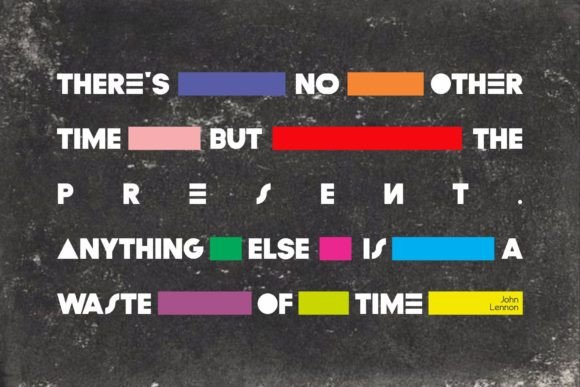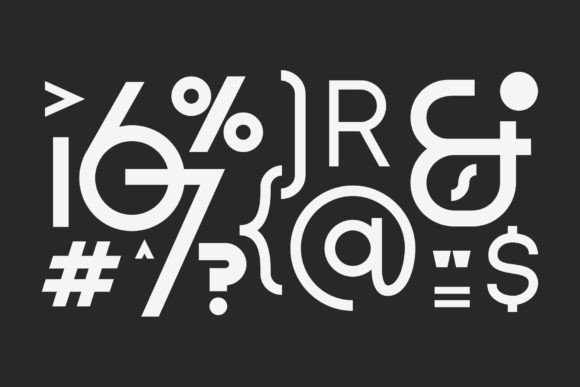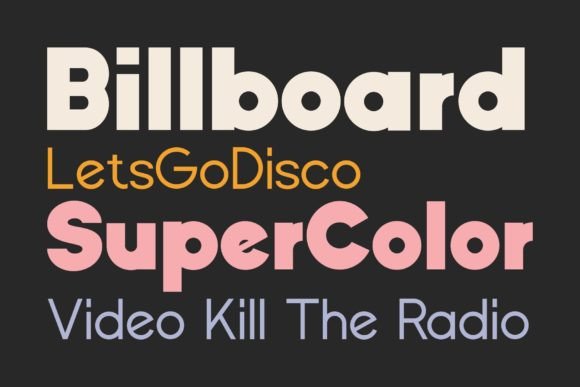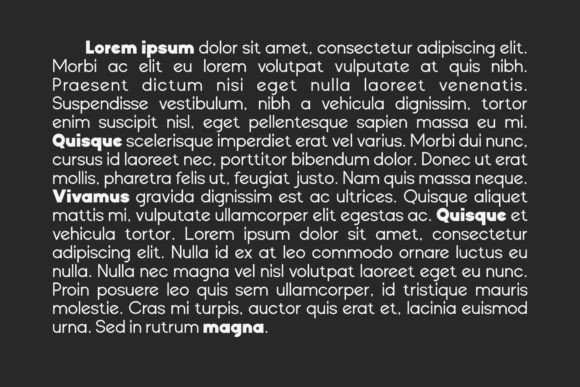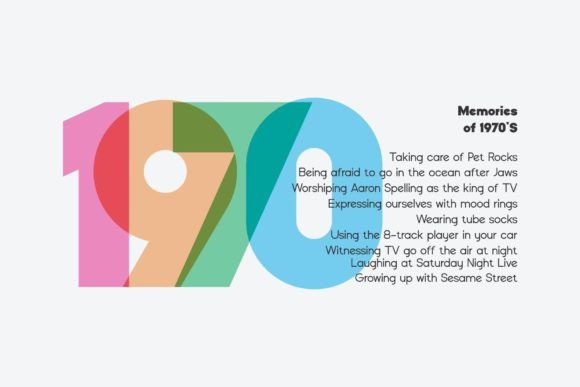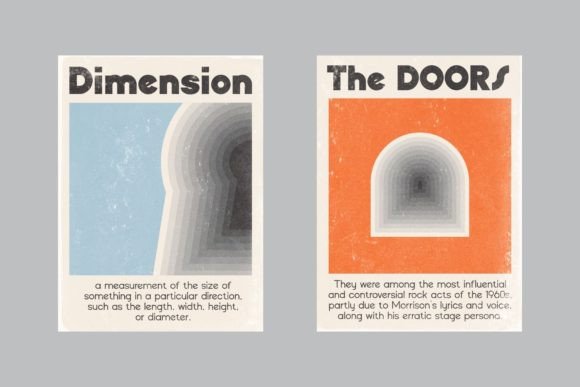
The Perfect Font for a Head-Turning Design
There’s that moment when a design just clicks – the colors, the layout, the typography all come together in perfect harmony. And a big part of that magic is the right font. For designers looking to make a statement, the search for that perfect font can be a long one. But what if we told you that the Boulevard Sans Font is the answer to all your design prayers?
Designed by Takoliko Studio, the Boulevard Sans Font is a geometric sans serif typeface with a dash of retro flair. Its bold characteristics make it the perfect choice for attention-grabbing design projects like headlines, posters, and editorials. With regular, bold, and oblique styles to choose from, the Boulevard Sans Font offers endless possibilities for creative expression.
Boulevard Sans Font Key Features
- Unique Characteristics: Boulevard Sans Font features a modern sans-serif design with clean lines, rounded edges, and a subtle flair at the terminals, making it ideal for corporate branding and digital applications.
- Font Styles: The font family includes 6 weights, ranging from Light to Black, providing flexibility for various design needs and ensuring consistency across different materials.
Boulevard Sans Font Review
When I first laid eyes on Boulevard Sans, I was immediately drawn to its sleek and modern aesthetic ✨. The font is characterized by its clean lines, rounded edges, and elegant proportions, making it perfect for a wide range of applications. From signage to editorial content, Boulevard Sans is sure to make a statement.
One of the standout features of Boulevard Sans is its versatility ✨. The font comes in a variety of weights and styles, allowing designers to create a cohesive visual identity that’s both consistent and engaging. Whether you’re looking to create a bold and attention-grabbing headline or a subtle and refined body text, Boulevard Sans has got you covered.
However, I do have a few reservations about the font’s limitations ⚠️. One of the main concerns is the font’s limited language support. While it’s available in many popular languages, it’s not as comprehensive as some other fonts on the market. Additionally, the font’s rounded edges can sometimes make it difficult to read at smaller font sizes.
- Works well in a wide range of applications, including signage, editorial content, and more.
- Features a variety of weights and styles, making it highly versatile.
- Has a clean and modern aesthetic that’s sure to make a statement.
- Limited language support, which may be a concern for designers working with non-English content.
- Font’s rounded edges can make it difficult to read at smaller font sizes.
- May not be suitable for applications where readability is a top priority.
Overall, I think Boulevard Sans is a solid choice for designers looking to add a touch of modernity to their work ✨. While it’s not without its limitations, the font’s versatility and clean aesthetic make it a great option for a wide range of applications. Just be sure to carefully consider the font’s limitations before making a final decision.
For optimal results, use Boulevard Sans Font for headings and titles to create a clear visual hierarchy.
Use Boulevard Sans Font for titles, headings, and body text to create a cohesive and professional look.